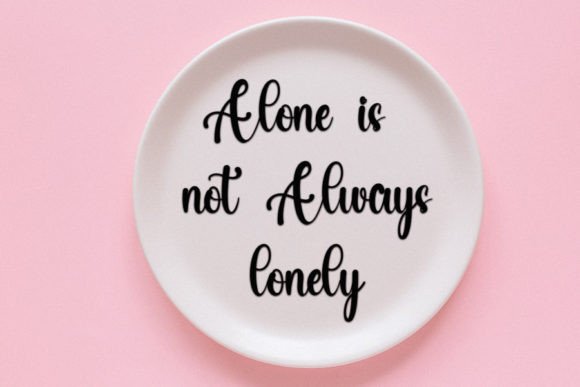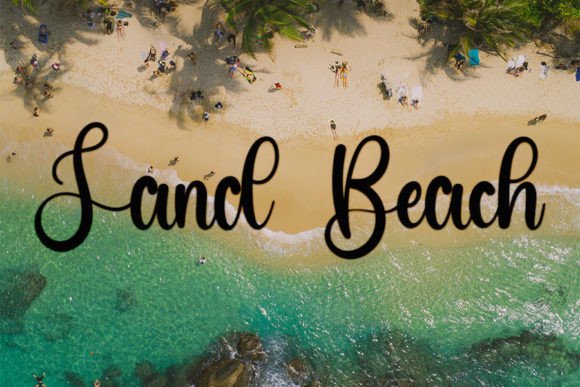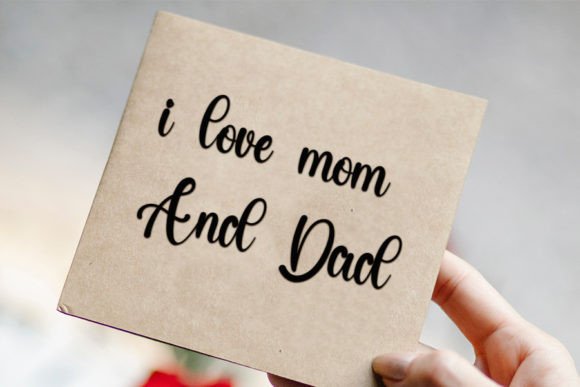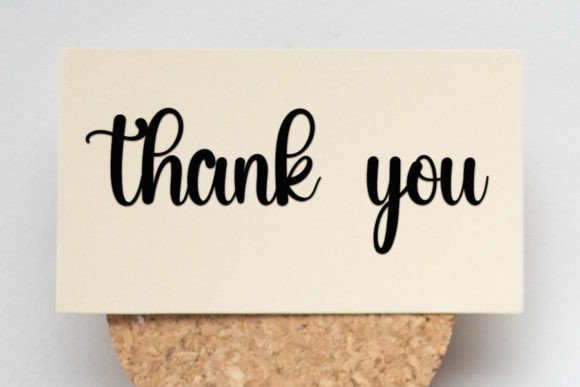
Coffee Chocolate Font: The Perfect Blend of Elegance and Timeless Style
Are you a designer or crafter looking for a font that can add a touch of sophistication and elegance to your projects? Look no further than the Coffee Chocolate Font. This beautiful handwritten font is described by its elegant touch, making it perfect for a wide range of applications. In this article, we’ll take a closer look at the Coffee Chocolate Font, its features, and how you can use it to create spectacular designs.
A Neat and Beautiful Handwritten Font
Coffee Chocolate Font is a neat and beautiful handwritten font that is sure to capture your heart. Its elegant touch is evident in every curve and line, making it a joy to use in a variety of projects. Whether you’re designing a logo, creating a social media graphic, or crafting a beautiful wedding invitation, this font is sure to impress.
Incredibly Distinct and Timeless Style
One of the standout features of the Coffee Chocolate Font is its incredibly distinct and timeless style. This font is not a fleeting trend, but rather a classic design that will stand the test of time. Its unique charm and character will add a touch of sophistication to any project, making it perfect for designers and crafters who want to create something truly special.
Perfect for Your Favorite Projects
Coffee Chocolate Font is versatile and can be used in a wide range of projects. Here are just a few ideas to get you started:
- Logos and branding: Use Coffee Chocolate Font to create a beautiful and elegant logo that will set your brand apart.
- Social media graphics: Add a touch of sophistication to your social media graphics with this stunning font.
- Wedding invitations: Create beautiful and elegant wedding invitations that will set the tone for a special day.
- Stationery and cards: Use Coffee Chocolate Font to create beautiful stationery and cards that will make a lasting impression.
Why Choose Coffee Chocolate Font?
There are many fonts to choose from, but Coffee Chocolate Font stands out from the rest. Here are just a few reasons why:
- Elegant and sophisticated: This font exudes elegance and sophistication, making it perfect for designers and crafters who want to create high-end designs.
- Unique and distinctive: Coffee Chocolate Font has a unique and distinctive style that will set your designs apart from the rest.
- Easy to read: Despite its elegant and cursive nature, Coffee Chocolate Font is easy to read, making it perfect for body text and headlines.
Tips for Using Coffee Chocolate Font
Here are a few tips for using Coffee Chocolate Font in your designs:
- Pair with a sans-serif font: Pair Coffee Chocolate Font with a sans-serif font to create a beautiful contrast and add visual interest to your design.
- Use for headlines and titles: Use Coffee Chocolate Font for headlines and titles to add a touch of elegance and sophistication.
- Experiment with colors: Experiment with different colors to find the perfect combination that complements your design.
Coffee Chocolate Font is a beautiful and elegant handwritten font that is perfect for designers and crafters who want to create sophisticated and timeless designs. Its unique and distinctive style, combined with its ease of use, make it a must-have font for any design project. Whether you’re creating a logo, social media graphic, or wedding invitation, Coffee Chocolate Font is sure to impress. So why wait? Fall in love with this stunning font and use it to create spectacular designs that will leave a lasting impression.